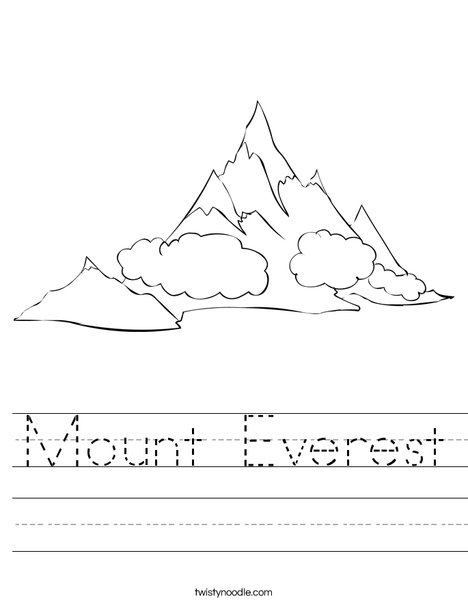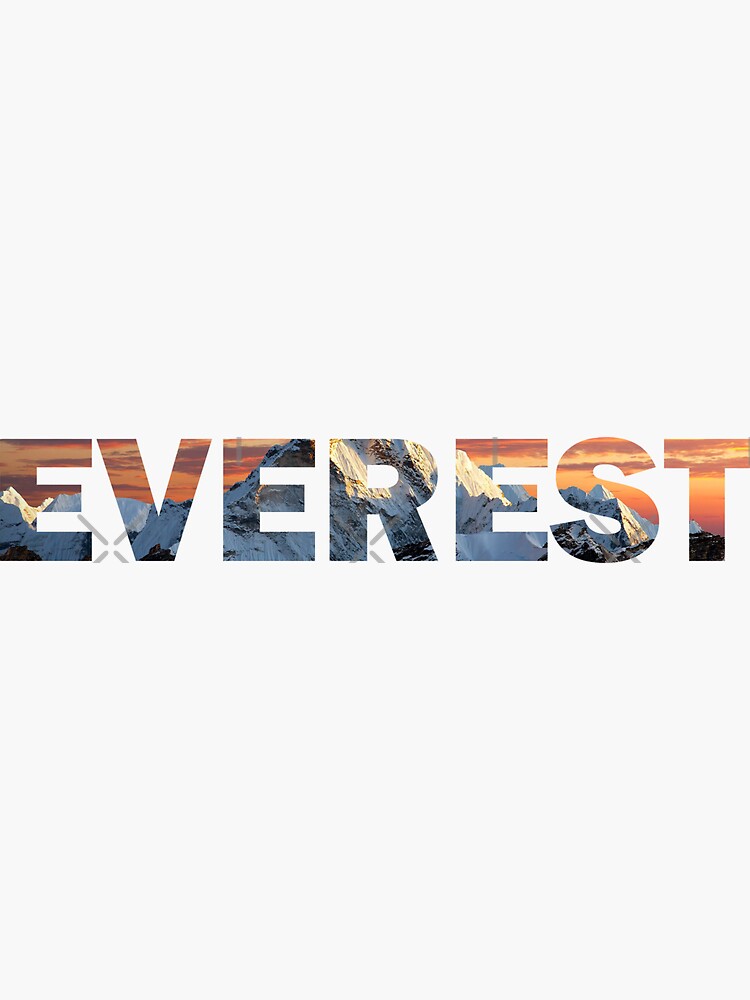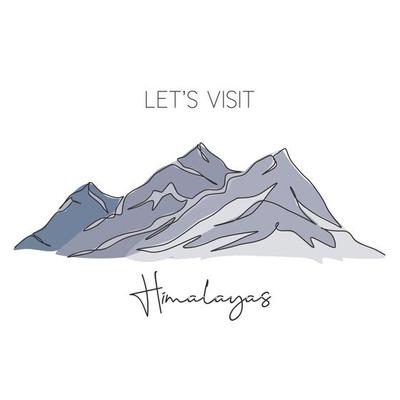
Everest Art: Words, Fonts, & Cool Creations!
Introduction: The Majestic Lure of Everest - Now in Art!
Mount Everest, the world's highest peak, has always captivated us with its challenging heights and breathtaking beauty. This week, the majestic mountain is inspiring a new wave of creativity, moving beyond traditional photographs and documentaries to the realm of art. We're seeing an explosion of interest in "Mount Everest word font draw cool" creations, as artists and enthusiasts find fresh and unique ways to represent this iconic landmark. This article will explore this trending phenomenon, offering inspiration and practical tips for creating your own Everest-inspired artwork. If you're looking to create visual representations, consider the keyword "mount everest word font draw cool" to guide your creations.
Mount Everest Word Font Draw Cool: A Creative Avalanche
The convergence of Everest, words, fonts, and drawings might seem unusual, but it perfectly captures the modern desire to express complex ideas in visually appealing ways. This trend isn't just about drawing a mountain; it's about encapsulating its spirit, history, and challenge within artistic typography and creative designs. The keyword "mount everest word font draw cool" reflects this very approach.
Mount Everest Word Font Draw Cool: Why This Trend is Taking Off
Several factors contribute to the popularity of this trend. Firstly, the inherent drama and grandeur of Everest lend themselves well to artistic interpretation. Secondly, the rise of digital art tools makes it easier than ever to experiment with different fonts, colors, and drawing styles. Finally, the "mount everest word font draw cool" aesthetic is easily shareable on social media platforms, allowing creations to reach a wide audience. The search term "mount everest word font draw cool" highlights its popularity.
Mount Everest Word Font Draw Cool: Ideas for Your Own Creation
Ready to try your hand at creating "Mount Everest word font draw cool" art? Here are some ideas to get you started:
Typography as Terrain: Use the words "Mount Everest" or climbing-related terms to create the shape of the mountain itself. Experiment with different font weights and sizes to create a sense of depth and texture. The repetition of "mount everest word font draw cool" reinforces its core theme.
Font Color Gradient: Apply a gradient to the font, transitioning from cool blues and whites at the summit to warmer browns and greens at the base, mirroring the mountain's changing landscape. Consider the visual impact of "mount everest word font draw cool" choices.
Illustrated Accents: Add hand-drawn elements such as climbers, flags, or snowdrifts around the typography to add visual interest and context. Remember to research and correctly illustrate specific facts about "mount everest word font draw cool".
Abstract Interpretations: Don't be afraid to get abstract! Use geometric shapes and bold colors to represent the feeling and energy of climbing Everest, rather than a literal depiction. Search the keyword "mount everest word font draw cool" for more abstract interpretations.
Quote Integration: Combine an inspirational quote about perseverance or overcoming challenges with your Everest-themed artwork. The phrase "mount everest word font draw cool" allows you to consider various typography styles.
Mount Everest Word Font Draw Cool: Tools and Resources
You don't need to be a professional artist to create stunning Everest-inspired art. Here are some accessible tools and resources:
- Digital Art Software: Programs like Adobe Photoshop, Illustrator, Procreate (for iPad), and free alternatives like GIMP and Inkscape offer a wide range of drawing and typography tools.
- Online Font Libraries: Websites like Google Fonts, DaFont, and Font Squirrel provide thousands of free and commercially licensed fonts to choose from.
- Inspiration Platforms: Sites like Pinterest, Dribbble, and Behance are great places to find inspiration and see how other artists are interpreting the "mount everest word font draw cool" theme.
- Tutorials: YouTube is an invaluable resource for learning specific drawing and typography techniques.
Mount Everest Word Font Draw Cool: Sharing Your Creation
Once you've created your "Mount Everest word font draw cool" masterpiece, don't be shy! Share it on social media using relevant hashtags like #MountEverest, #Typography, #DigitalArt, #GraphicDesign, #CreativeArt, and of course, #MountEverestWordFontDrawCool. Engage with other artists and participate in online art challenges to get your work seen.
Mount Everest Word Font Draw Cool: Beyond the Trend - Staying Inspired
The "Mount Everest word font draw cool" trend is a fun and engaging way to express your creativity. But beyond the trend, the real value lies in exploring your own artistic voice and developing your skills. Continue to experiment with different styles, techniques, and themes, and let the majestic mountain serve as a constant source of inspiration.